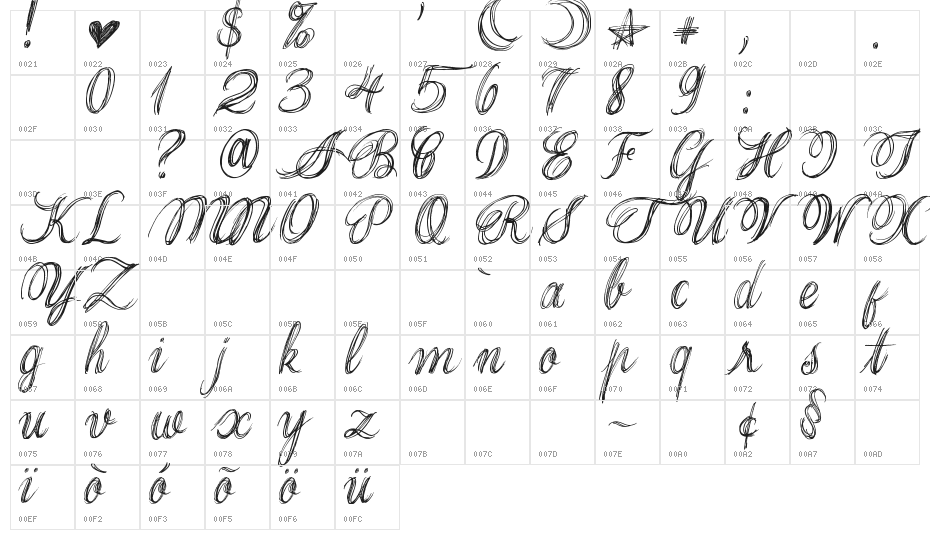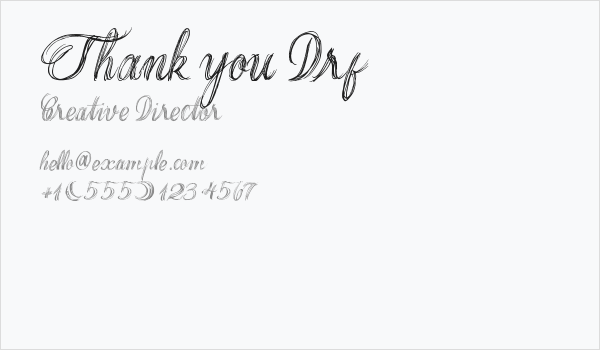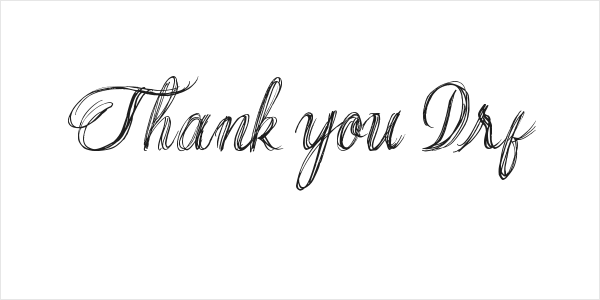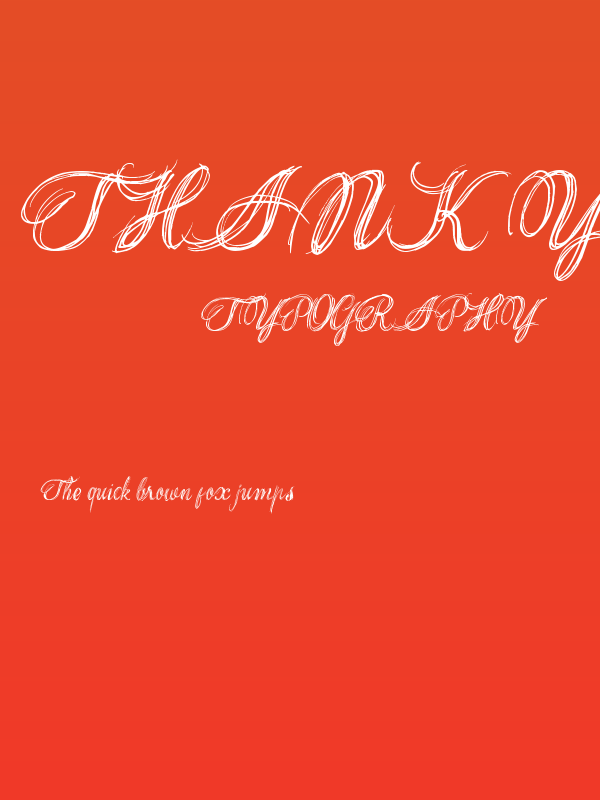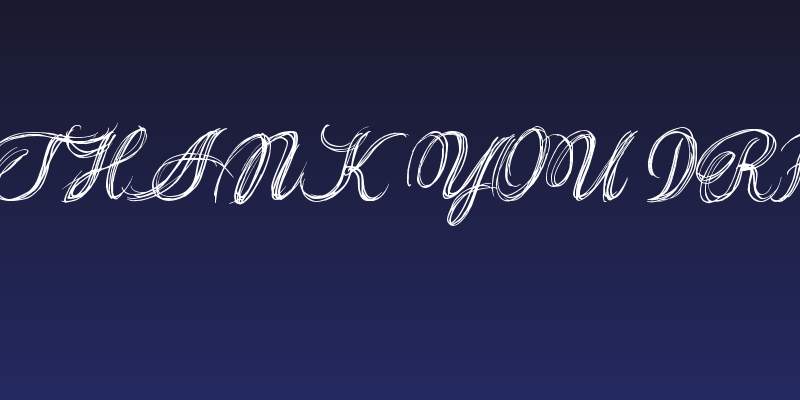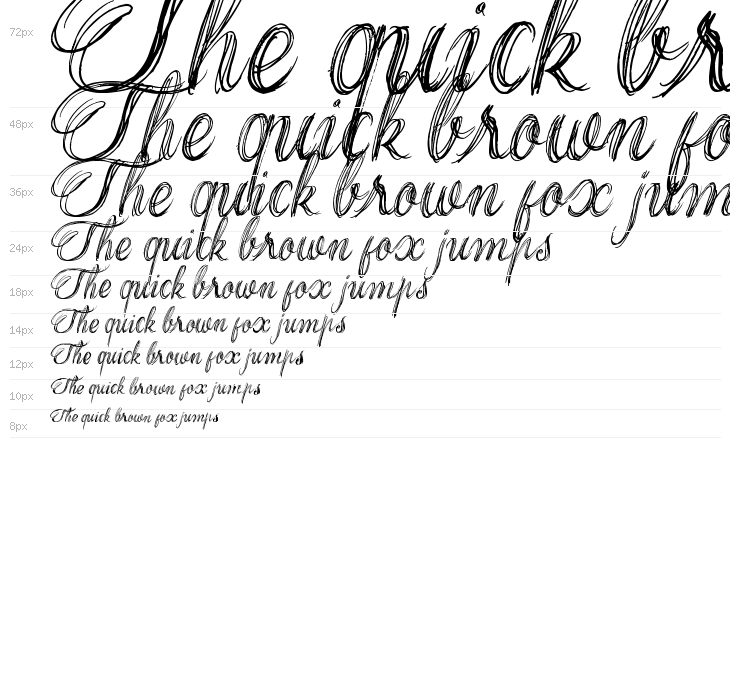
Thank you Drf Font
Thank you Drf Description
This font features a dynamic and expressive handwritten style, characterized by its swirling, sketch-like strokes that convey a sense of movement and energy. The letters are interconnected with fluid, cursive lines, creating a sense of continuity and flow. The uppercase and lowercase letters maintain a consistent style, with the uppercase being slightly more elaborate. Numbers and special characters follow the same aesthetic, ensuring uniformity across all glyphs. The overall appearance is artistic and informal, making it suitable for creative and personal projects.
| Proposed Projects | Ideal for greeting cards, invitations, artistic posters, and personal branding. |